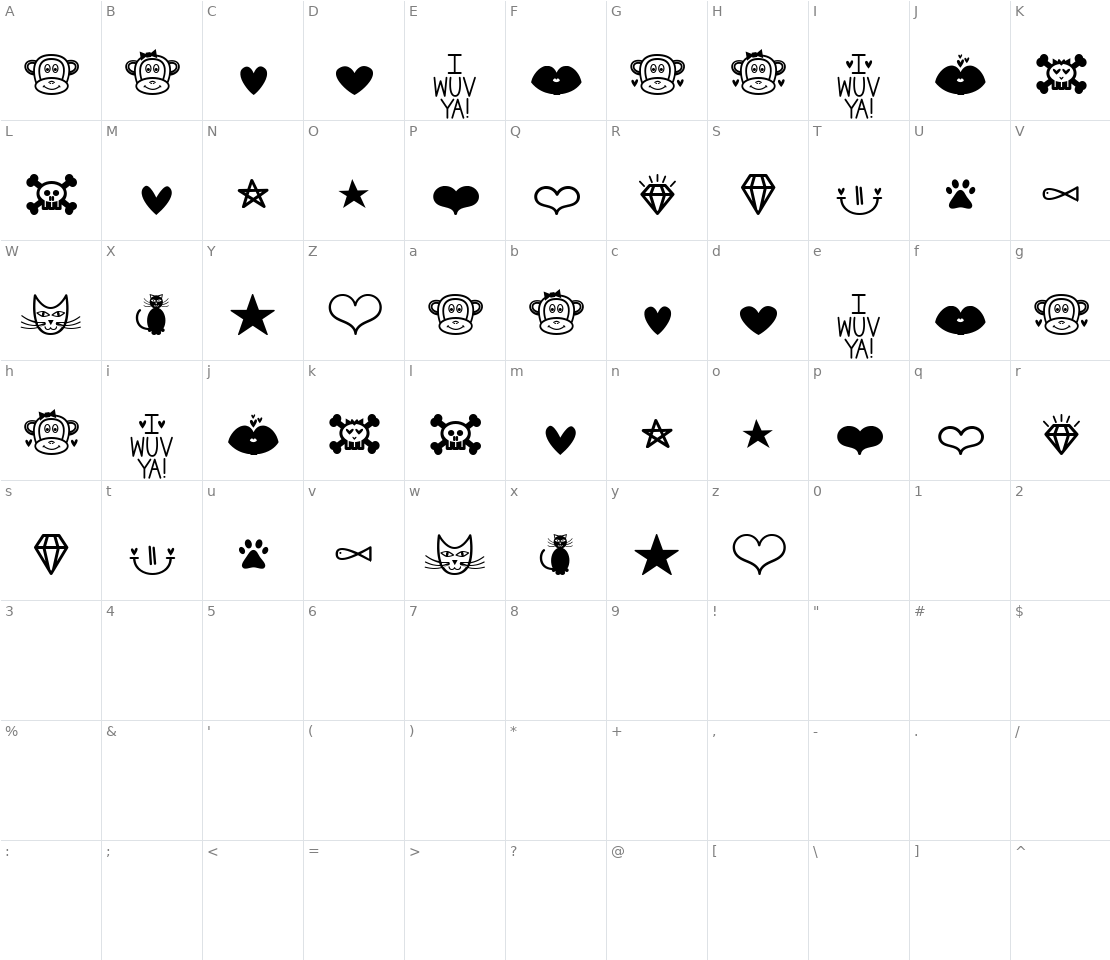
MF Dings 2
MF Dings 2 is a playful dingbat set from Misti's Fonts featuring monkeys, hearts, and assorted cute symbols. The characters lean cheerful and lighthearted, with a hand-drawn quality that makes them a natural fit for Valentine's Day cards, children's projects, stickers, and casual decorative accents where you want something sweet without being overly polished.